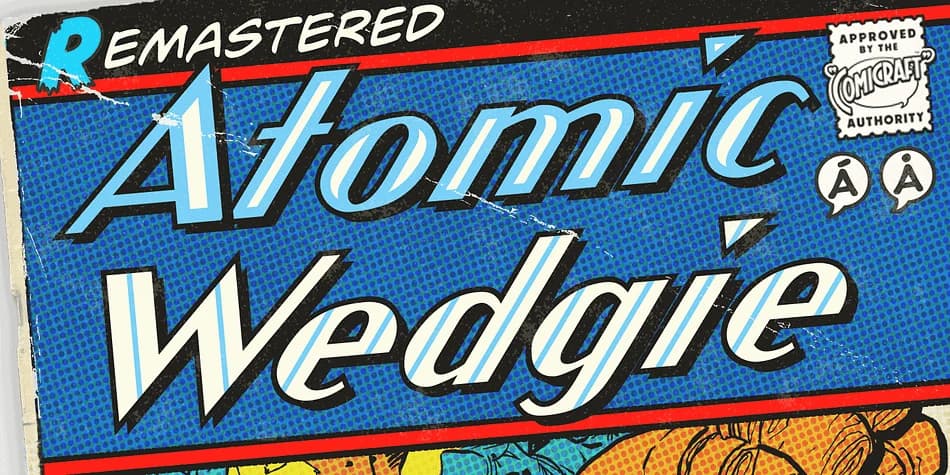
Imagine designing a comic book cover or a vintage sci-fi poster that absolutely needs to grab attention immediately. Atomic Wedgie, from Comicraft, is built exactly for that job. This decorative typeface channels the energy of mid-century action comics and sci-fi paperbacks, complete with sharp letterforms that feel authoritative without trying too hard.
The font excels at retro movie poster designs, comic convention merchandise, vintage-style pulp fiction covers, and 1950s-themed event graphics. You'll find it equally at home on a rebellion flyer, an old-school arcade game sign, or a superhero-themed party announcement. Each application benefits from that confident, slightly campy aesthetic that makes people take a second look. The letterforms are tight and deliberate, with careful spacing that keeps everything readable at any scale. Unlike fonts that get muddy when enlarged, this one maintains clarity and visual impact with zero fussing required.
What makes it worth keeping in your toolkit is straightforward: the clean kerning means minimal adjustments to letter spacing. The design carries that classic comic book personality without feeling dated or overdone. Pick it up from Creative Fabrica and put it to work on projects that genuinely need character, edge, and presence.
Atomic Wedgie Font is a decorative font that shines as a display or heading face. Pair it with a clean sans-serif or serif font for body text β the contrast creates a clear hierarchy while the two styles stay balanced and easy to read.